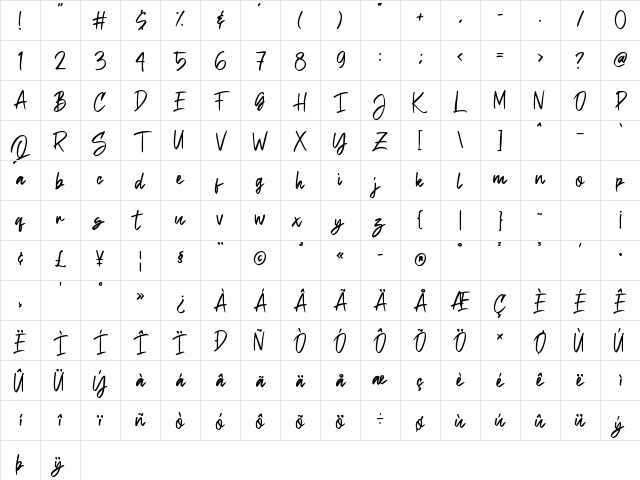
Sethidy Regular Free Font
Sethidy Regular
Designer: Dimas Prasetyo
Design Context for Sethidy
Sethidy is a composed and adaptable typeface that performs quietly and consistently across a wide range of design contexts.